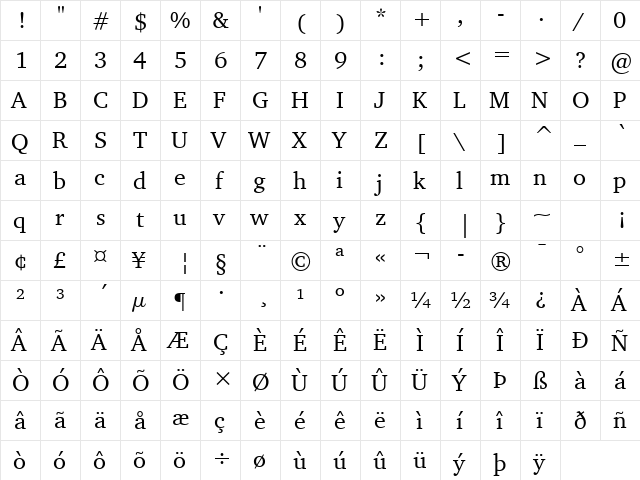
Charter BT Roman
Design Context for Charter BT Typeface
Charter BT takes a measured approach to typography — its balanced proportions and neutral character make it a reliable workhorse for both digital and print work.